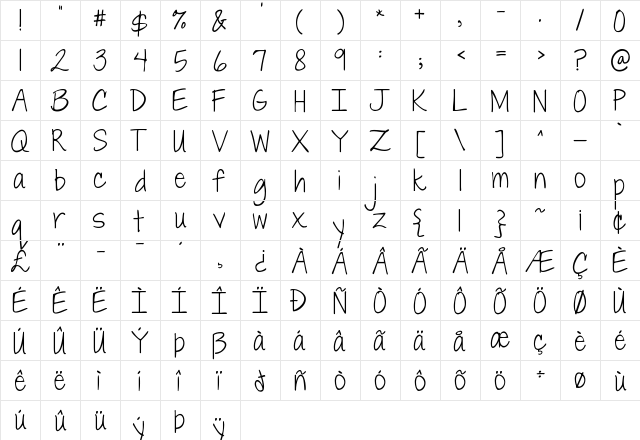
Janda Everyday Casual Regular
| Foundry | Kimberly Geswein |
| Designer | Kimberly Geswein |
Design Context for Janda Everyday Casual Typeface
Janda Everyday Casual takes a measured approach to typography — its balanced proportions and neutral character make it a reliable workhorse for both digital and print work.